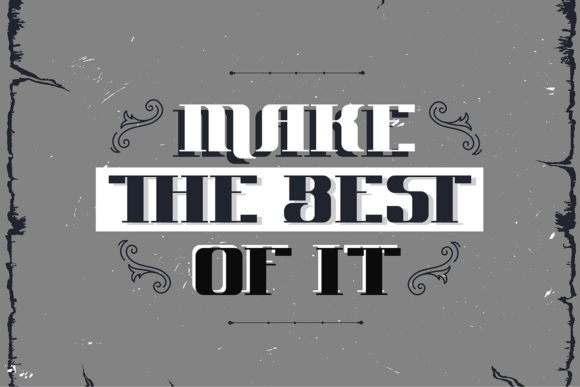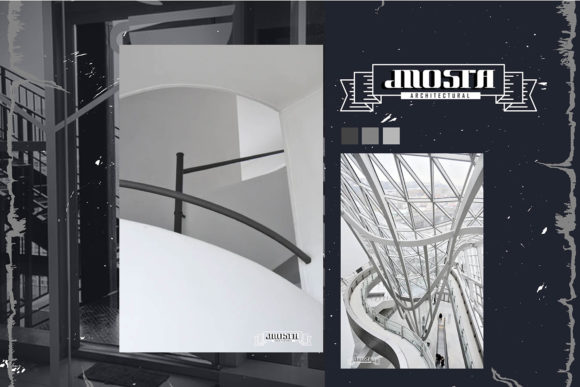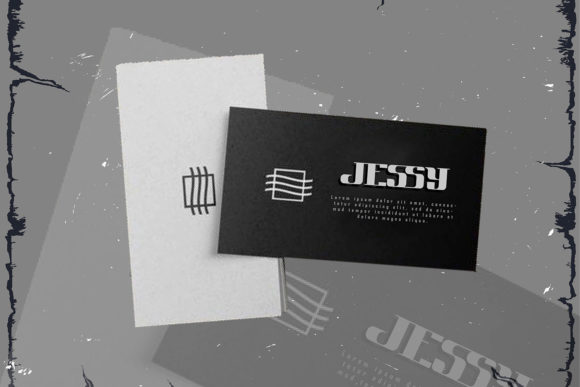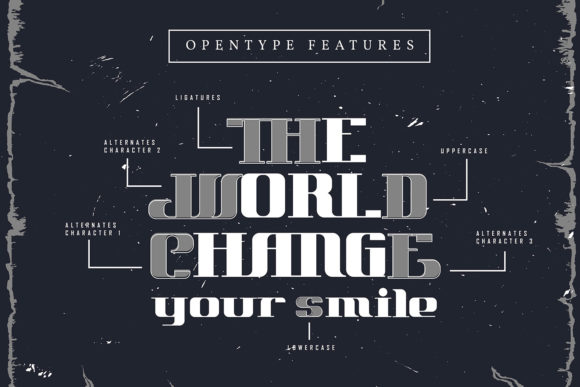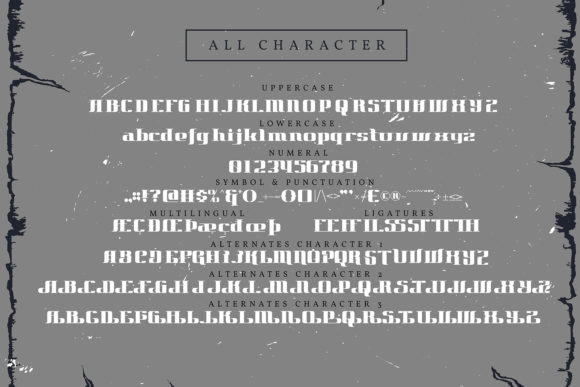
Introduction to Big Brandy Font
Big Brandy is a bold and retro styled display font.
Add this assertive font to each of the creations that require a strong and unique touch .
Key Features of Big Brandy Font